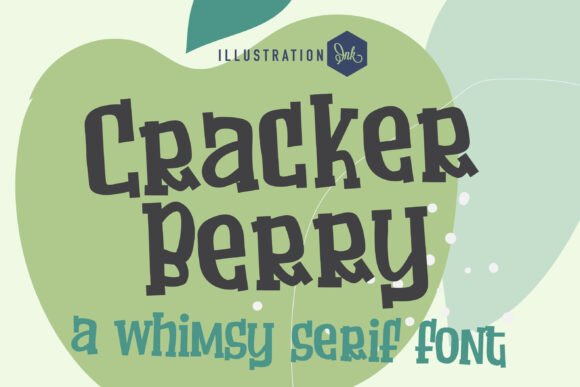
Cracker Berry Font: Whimsical Serifs for Handmade Crafts
Using Cracker Berry Font for Handmade Product Labels and Packaging
Cracker Berry is a distinctive serif typeface that brings immediate warmth and artisanal charm to handmade product labels and packaging designs. As crafters and small business owners, we know that the typography on a candle jar, soap wrapper, or bakery box tells the customer as much about the quality of the item as the ingredients list does. This hand-crafted font is a whimsical print with hand-crafted slab serifs throughout, making it exceptionally well-suited for brands that want to communicate authenticity without sacrificing legibility. Unlike standard digital fonts that can feel cold or mass-produced, Cracker Berry retains the organic imperfections of hand-lettering while maintaining the structural integrity needed for professional printing.
When designing labels for physical products, readability at small sizes is paramount. The slab serif structure in this typeface provides enough weight to remain crisp when printed on textured paper, kraft stickers, or matte vinyl. For makers selling on platforms like Etsy or at local markets, using Fonts like Cracker Berry helps establish a cohesive brand identity across diverse product lines. Whether you are labeling homemade jams, boutique skincare, or knitted goods, the bold version included in this family allows you to create hierarchy on your packaging. You might use the bold weight for the product name to grab attention from a distance, while utilizing the regular weight for descriptive text or scent notes. This versatility ensures that your packaging looks intentional and premium, directly influencing perceived value and customer trust.
Cracker Berry Serif Typography for Wedding Invitations and Stationery
Cracker Berry offers stationery designers a perfect balance of playful whimsy and traditional elegance for wedding invitations and event suites. In the competitive world of paper goods, finding serif fonts that feel personal rather than stiff is a constant challenge for creators. A hand-crafted font is a font that is designed to look like it was written by hand, and this specific characteristic makes Cracker Berry ideal for modern weddings that lean toward boho, rustic, or garden aesthetics. The unique letterforms add a layer of intimacy to formal announcements, making guests feel personally invited rather than simply notified.
For printable template sellers and invitation designers, this typeface serves as an excellent display font for names, dates, and header text. Because the design features distinct slab serifs, it pairs beautifully with delicate scripts or clean sans serif body text. When creating welcome signs, seating charts, or menu cards, the bold version of Cracker Berry ensures that key information stands out against watercolor backgrounds or floral illustrations. It is important to test print sizes early in the design process; while the font is robust, intricate details in hand-crafted styles can sometimes fill in on lower-quality home printers. However, for professional offset printing or high-resolution digital downloads, Cracker Berry maintains its charming texture, helping your stationery portfolio stand out to brides seeking something unique yet readable.
Cutting Machine Compatibility for Cracker Berry Vinyl Decals and Signs
Cracker Berry is surprisingly effective for vinyl cutting projects despite its hand-drawn aesthetic, provided users adjust their settings for serif fonts. Crafters using Cricut or Silhouette machines often avoid hand-crafted styles because thin lines can tear during weeding, but the slab serif construction here offers more surface area for adhesive contact. This makes it a viable option for car decals, laptop stickers, tumbler wraps, and wooden signs where a whimsical vibe is desired. The bold version included is particularly valuable for cutting machines, as the thicker strokes reduce the risk of tearing and make weeding significantly faster and less frustrating.
When using this font for SVG-style designs or adhesive vinyl, consider the final application surface. On textured wood or canvas tote bags, the organic edges of Cracker Berry blend naturally with the material grain, enhancing the handmade feel. For smooth surfaces like glass or plastic, the whimsical print style adds necessary visual interest to otherwise simple text. Makers should always perform a test cut with this typeface, as hand-crafted fonts can have varying node counts compared to geometric typefaces. Simplifying the path in your cutting software can help prevent jagged edges. By leveraging the sturdy nature of these slab serifs, you can expand your product offerings beyond basic block letters into more expressive, artistic territory that commands higher price points due to its unique character.
Pairing Cracker Berry Display Font with Scripts for Digital Printables
Cracker Berry acts as a grounding anchor when paired with flowing scripts for digital planners, wall art, and social media templates. In the realm of digital downloads, visual hierarchy dictates user engagement, and having reliable serif fonts in your asset library is essential for creating balanced layouts. The whimsical nature of this hand-crafted font complements high-contrast calligraphy or minimalist sans serifs, preventing designs from looking too chaotic or too sterile. For example, in a printable daily planner, you might use the bold Cracker Berry for day headers to provide structure, while using a lighter script for motivational quotes or decorative elements.
This strategic pairing is equally effective for Instagram stories, Pinterest pins, and blog graphics where quick readability is crucial. The distinct personality of Cracker Berry stops the scroll, while its legible slab serifs ensure the message is consumed instantly. For creators selling editable Canva templates or Corjl files, including this typeface adds significant value because it bridges the gap between trendy and timeless. It works exceptionally well for niches like parenting, education, wellness, and creative arts where a soft, approachable tone is required. Remember that in digital environments, screen resolution affects how hand-crafted details render; testing your designs on mobile devices ensures that the whimsical print remains clear and attractive across all user touchpoints.